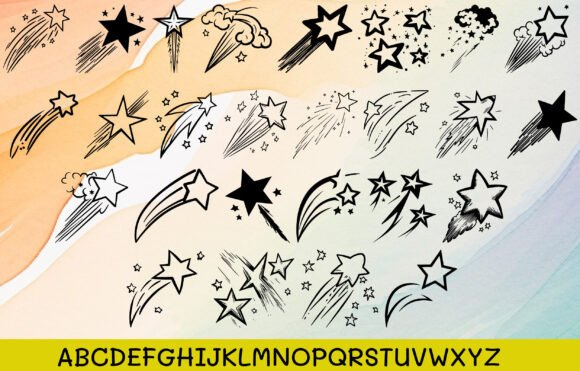
Introduction to Shooting Star Dream Font Font
Fonts play a crucial role in design, and the Shooting Star Dream Font font is a typeface that brings both character and versatility to any project. Whether you’re working on a branding project, a website, or a print design, the Shooting Star Dream Font font offers a unique style that can elevate your work.
Shooting Star Dream Dingbats Fonts This set features 26 unique star-inspired designs, each corresponding to a letter from A to Z.
Shooting Star Dream Dingbats Fonts This set features 26 unique star-inspired designs, each corresponding to a letter from A to Z. Includes both OTF and TTF file formats, ideal for adding a dreamy, cel
Key Features of Shooting Star Dream Font Font
Why Choose Shooting Star Dream Font Font?
The Shooting Star Dream Font font is more than just a typeface – it’s a design tool that helps you communicate your message with style and clarity. Its unique character set and versatile design make it suitable for a wide range of applications, from elegant invitations to bold headlines.
With its carefully crafted letterforms and balanced proportions, the Shooting Star Dream Font font ensures readability and visual appeal across all mediums.
What makes Shooting Star Dream Font font special?
The Shooting Star Dream Font font stands out with its unique design, exceptional readability, and versatility across various design applications.